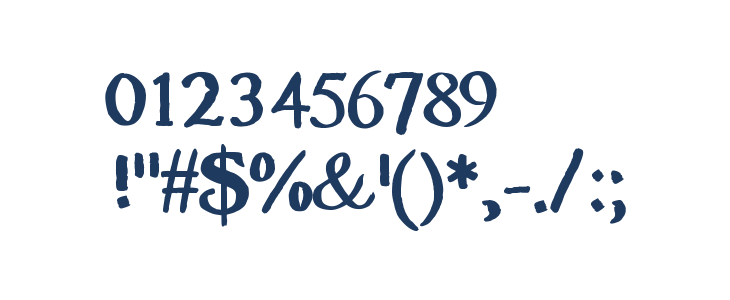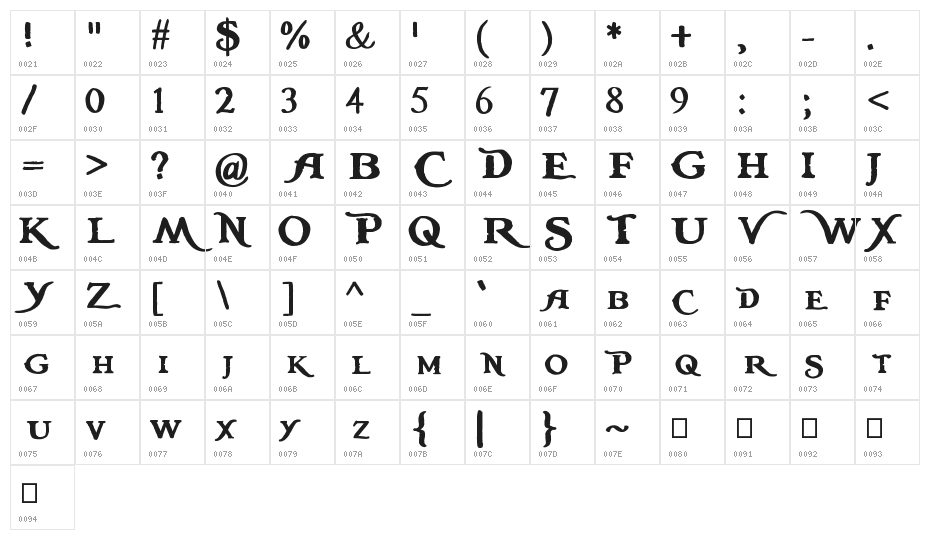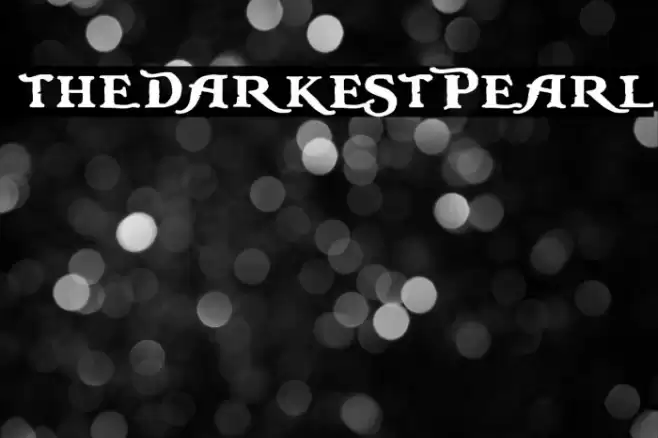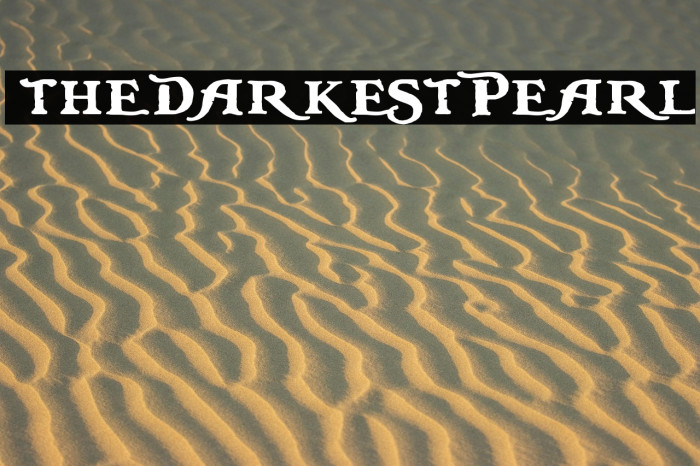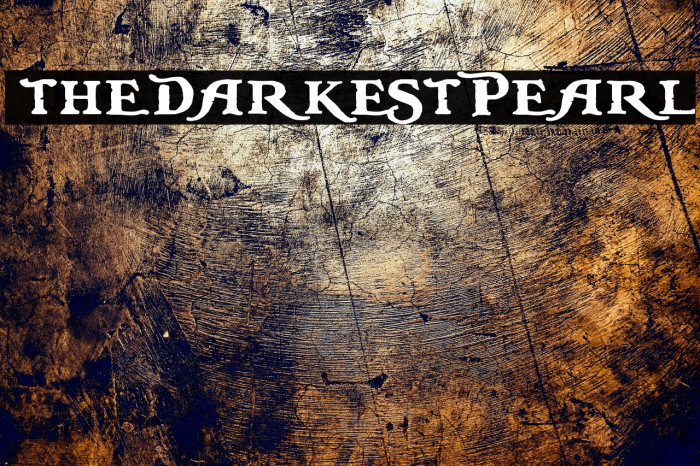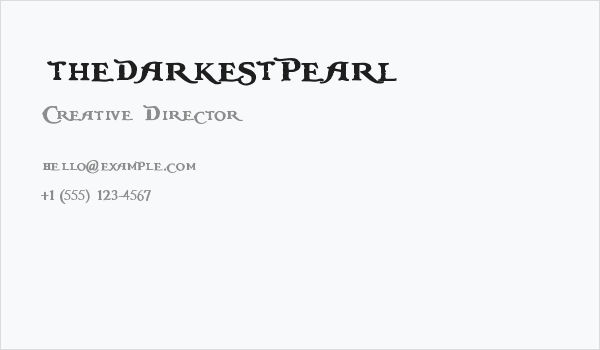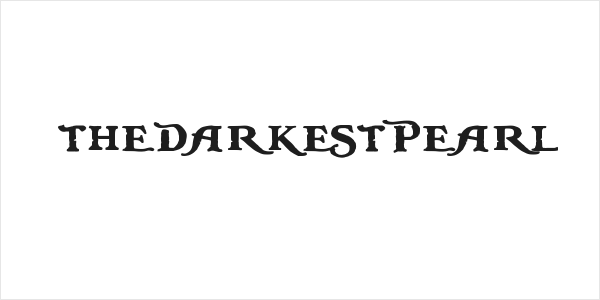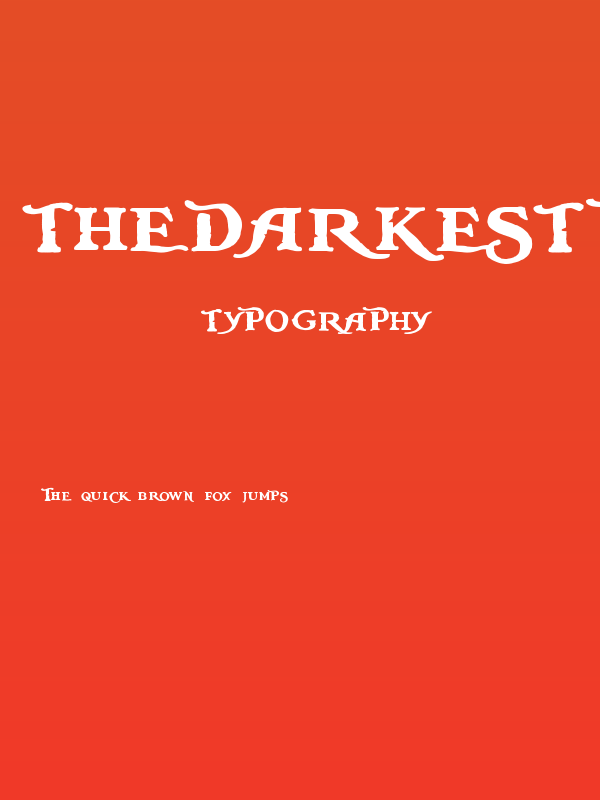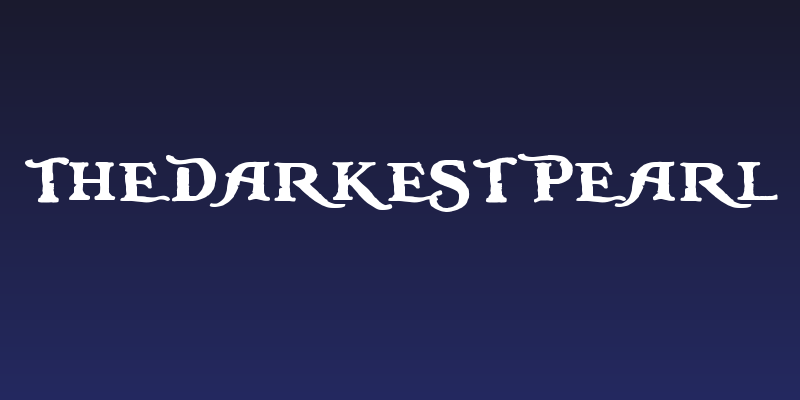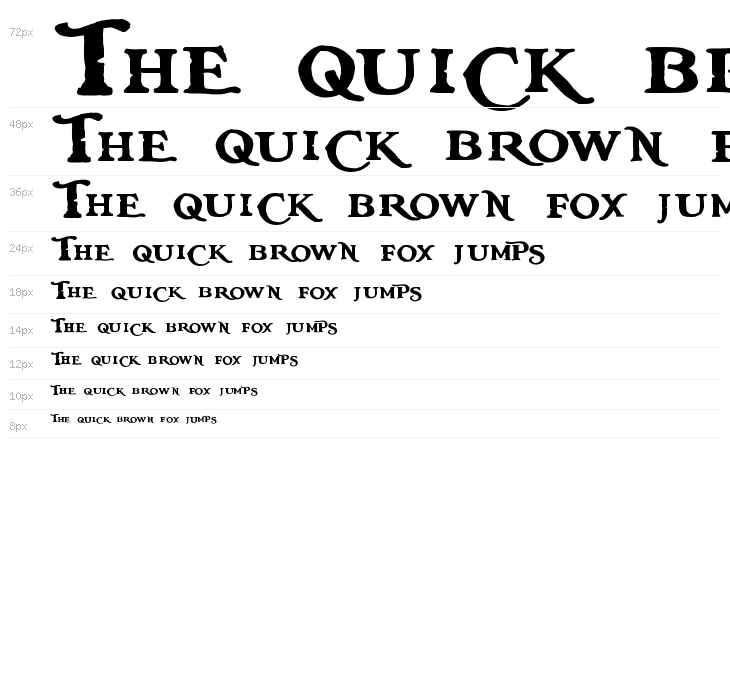
thedarkestpearl Font
thedarkestpearl Description
This font features a bold and dramatic style with a distinct medieval flair. The characters exhibit a strong presence with thick strokes and sharp serifs, reminiscent of traditional calligraphy. The uppercase letters are particularly ornate, with exaggerated curves and flourishes that add a sense of elegance and grandeur. The lowercase letters maintain the same boldness, ensuring consistency throughout the text. Numbers and special characters are crafted with the same attention to detail, making them suitable for decorative purposes. The overall design is both striking and legible, making it ideal for projects that require a touch of historical or fantasy elements.
| Use Case | Headlines, Logos, Decorative text |
| Proposed Projects | Ideal for fantasy book covers, historical event posters, themed invitations, and video game graphics. |